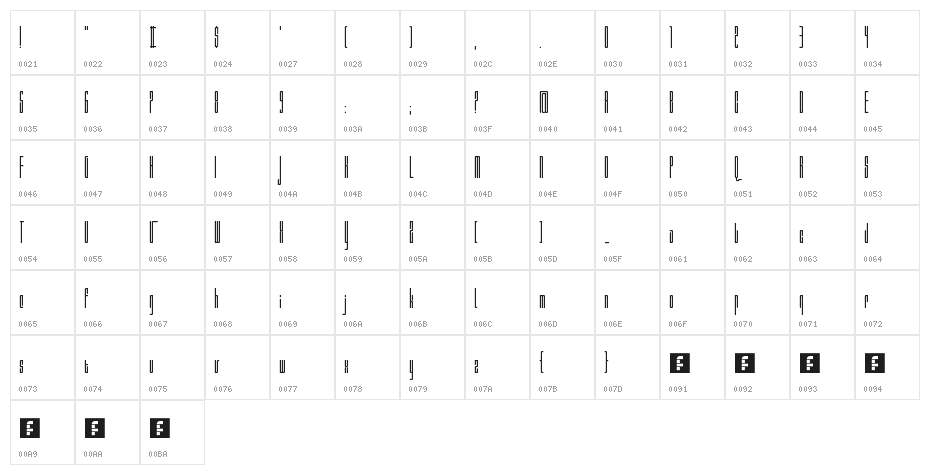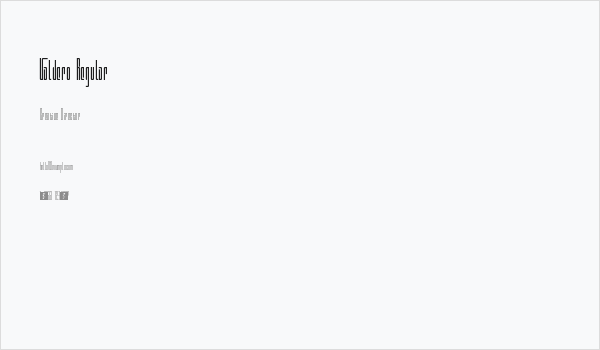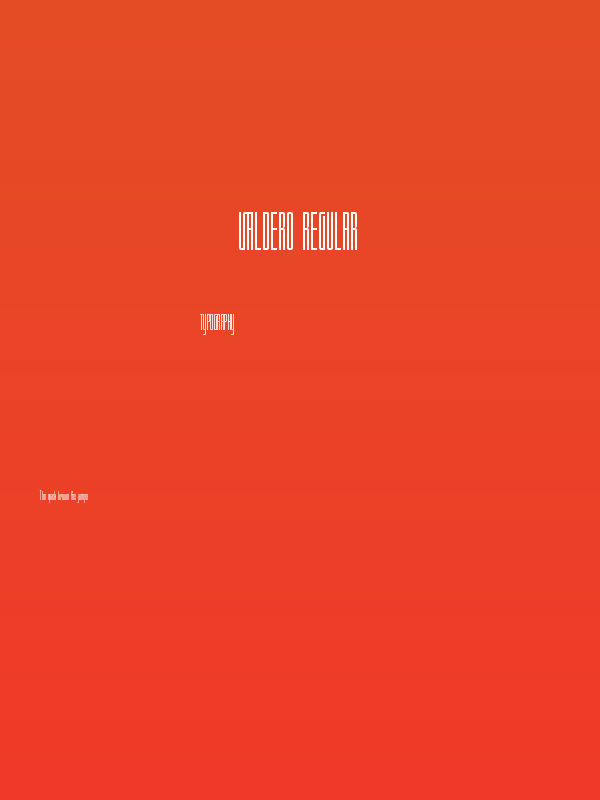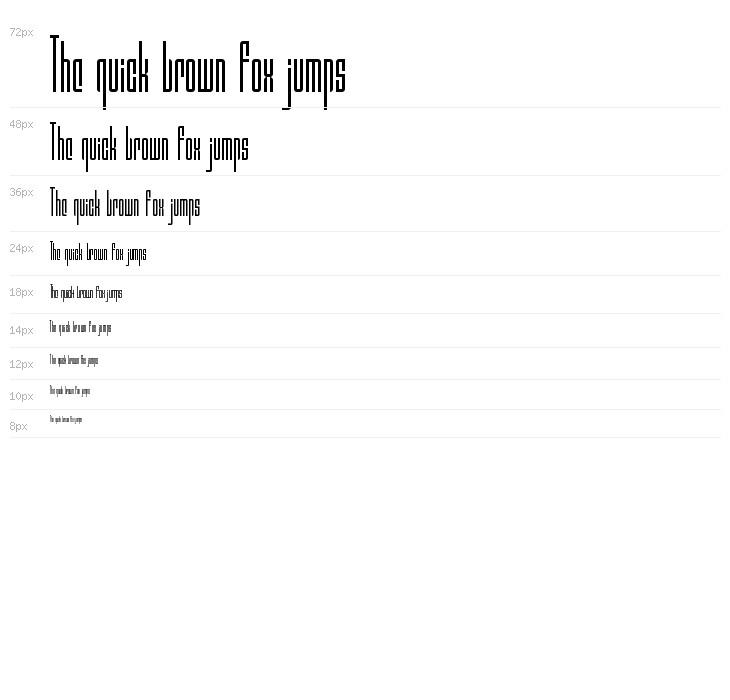
Valdero Regular Font
✎ Modern
| Progetti proposti | Ideal for modern branding, posters, and editorial design where a distinctive and stylish look is desired. |